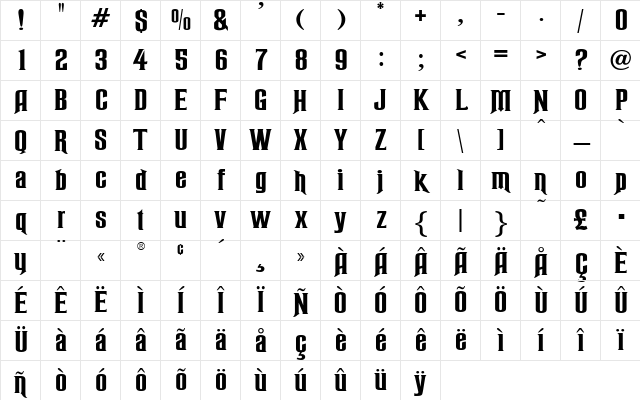
RubensWide Regular
Design Context for RubensWide
RubensWide is a composed and adaptable typeface that performs quietly and consistently across a wide range of design contexts.